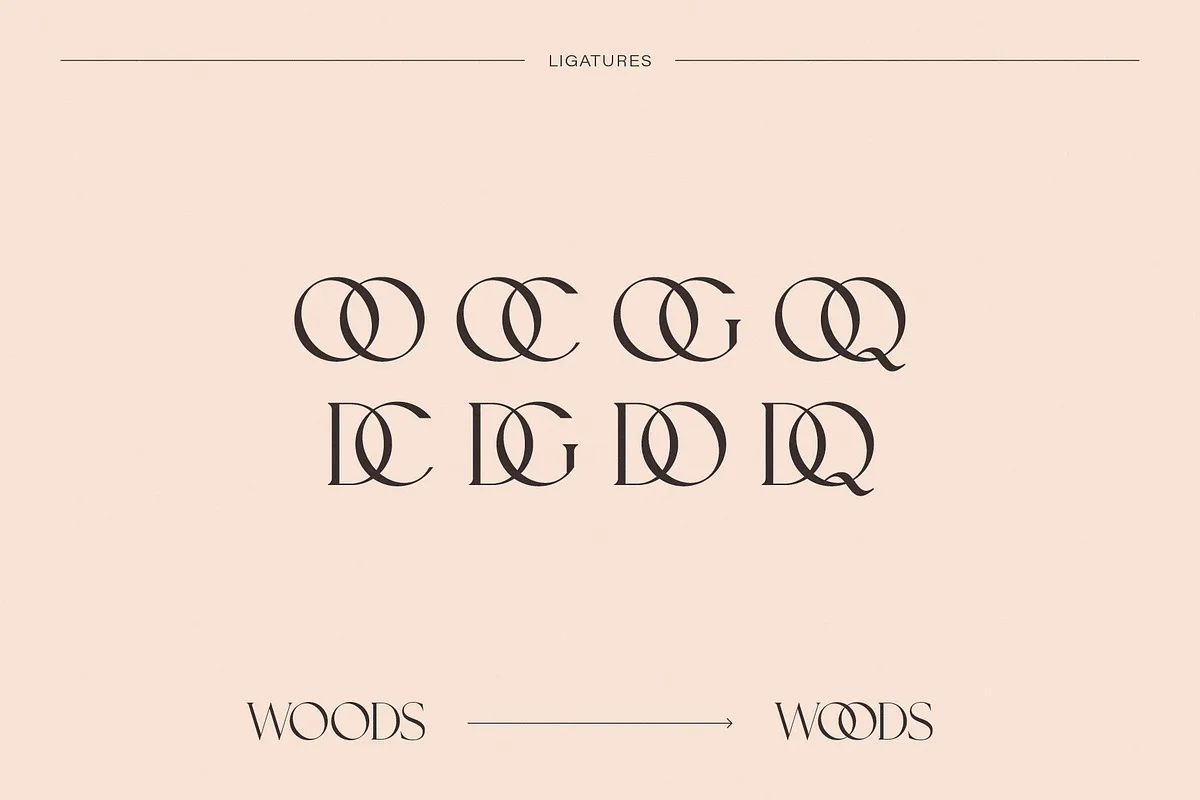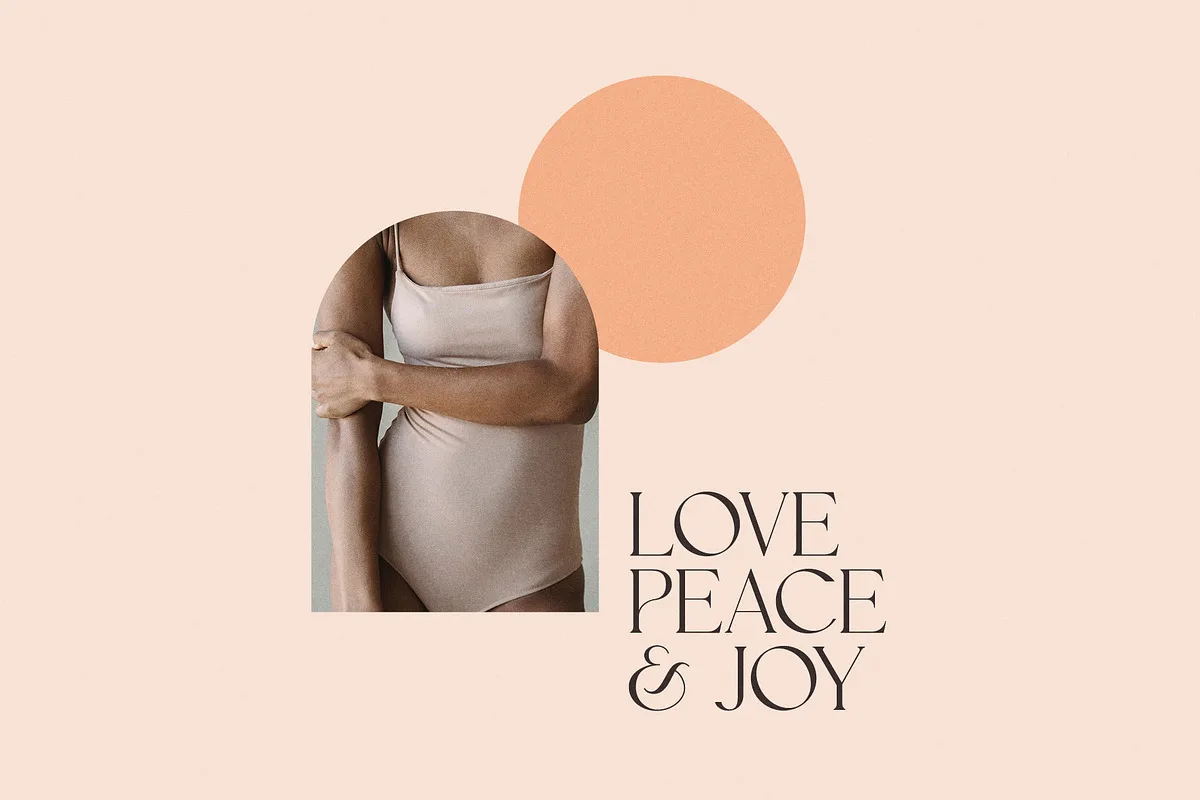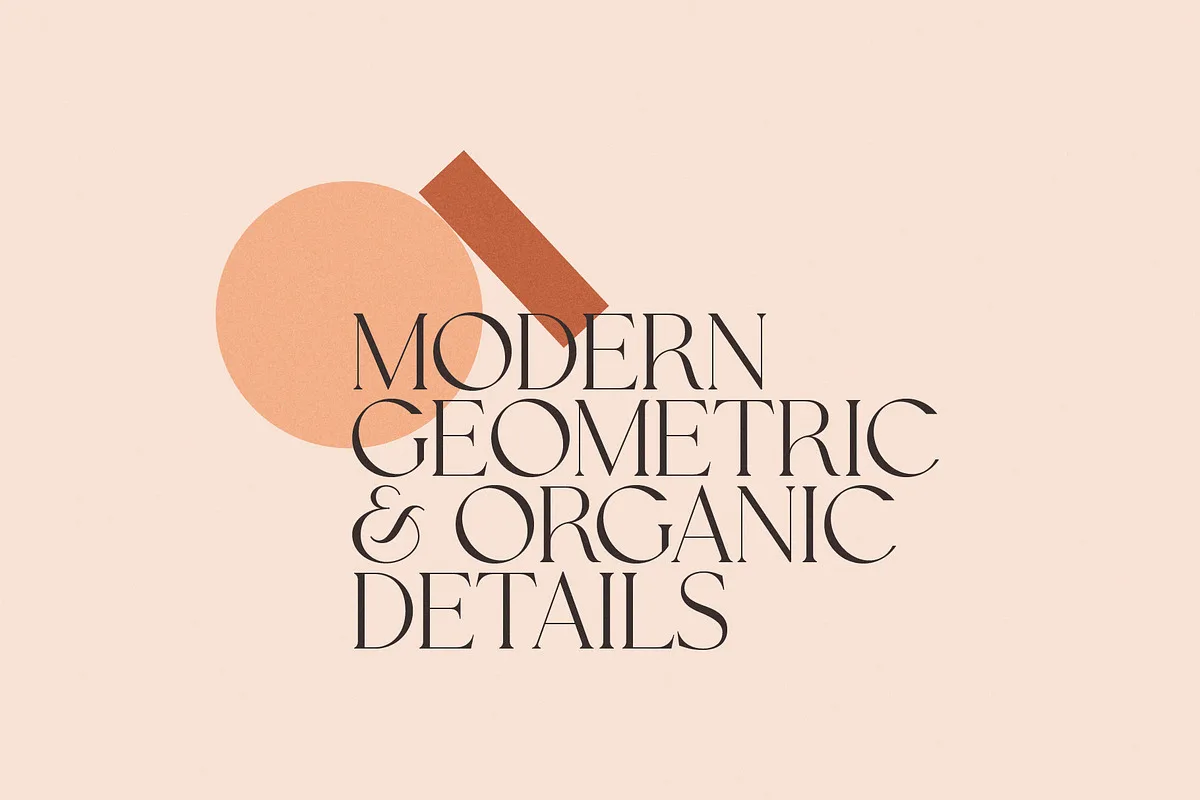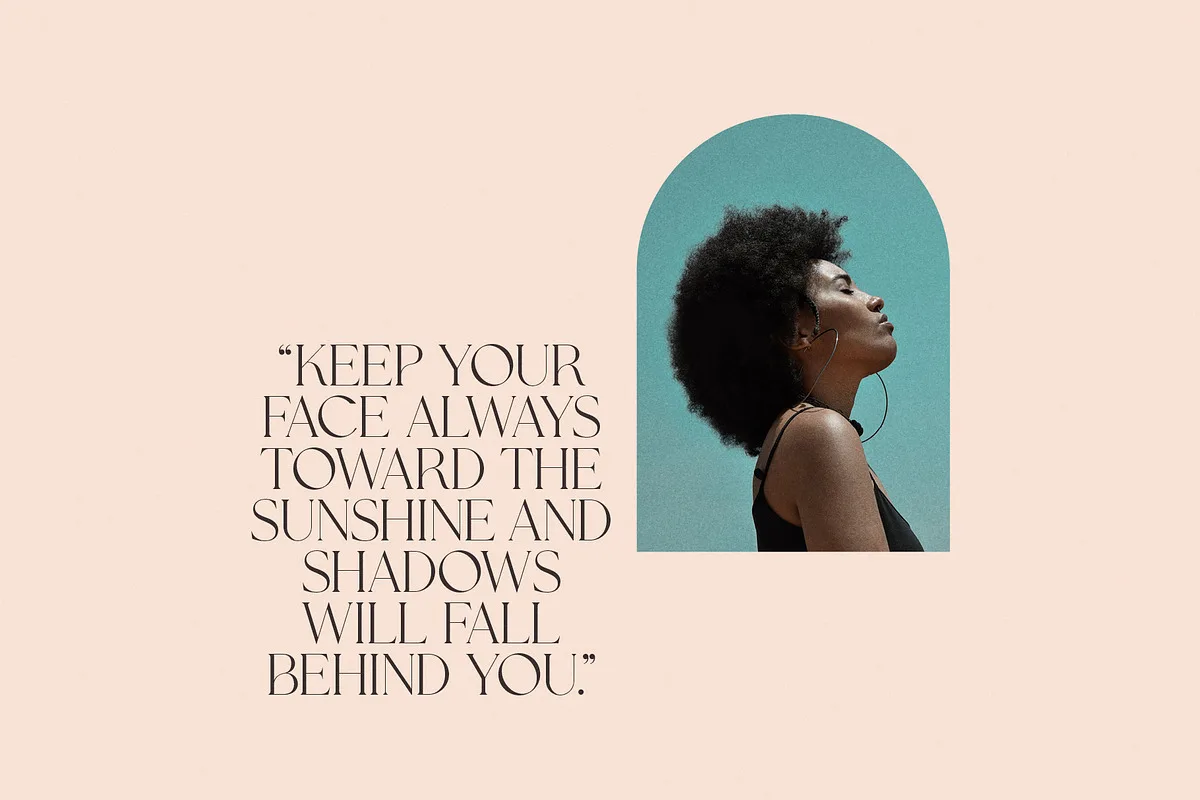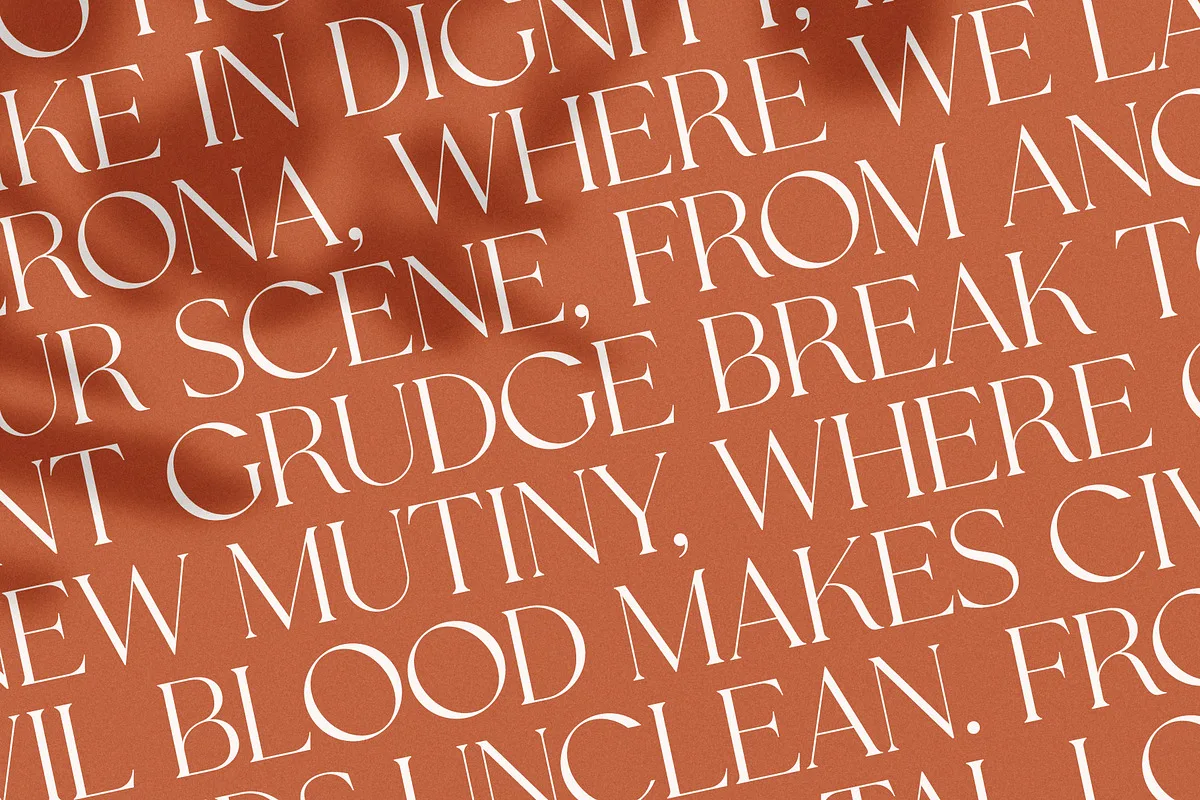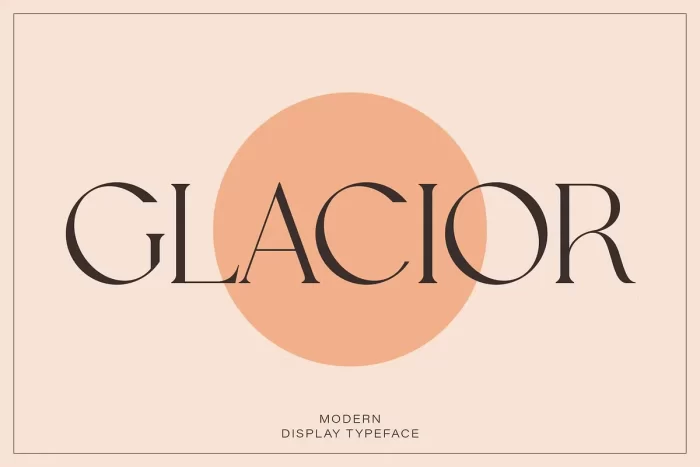
Glacior is a modern display serif font blending minimalist and classic design. This typeface is perfect for logos, quotes, branding, or editorial projects.
With its unique character, Glacior combines geometric shapes with organic, curvy details, making it a distinctive choice to express individual personality. It features discretionary ligatures for an even more unique look. It is an uppercase typeface, meaning it does not include lowercase letters.
- Uppercase, numbers, symbols and punctuation
- Discretionary Ligatures